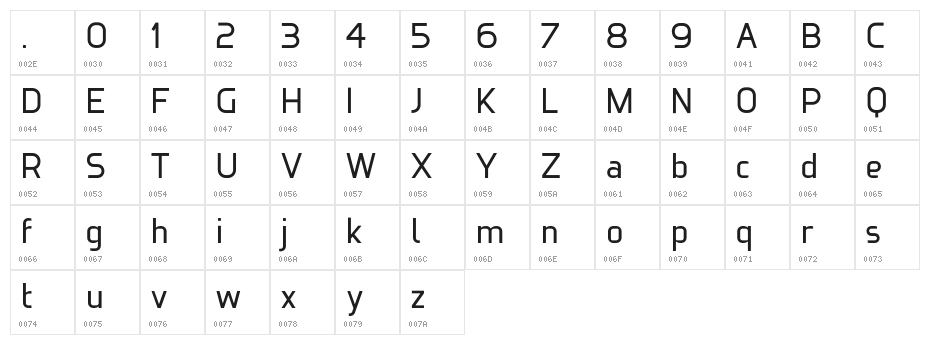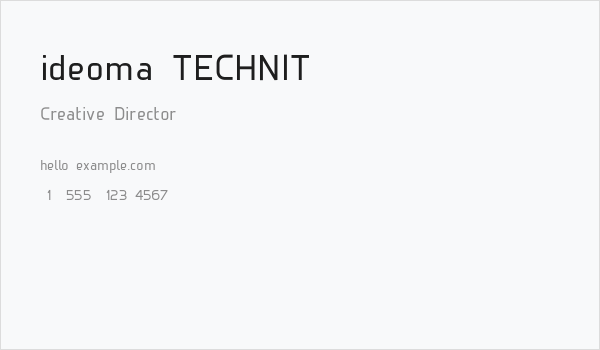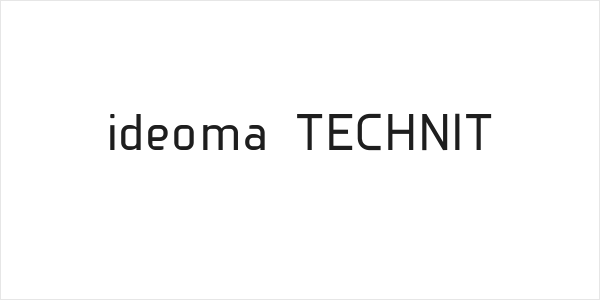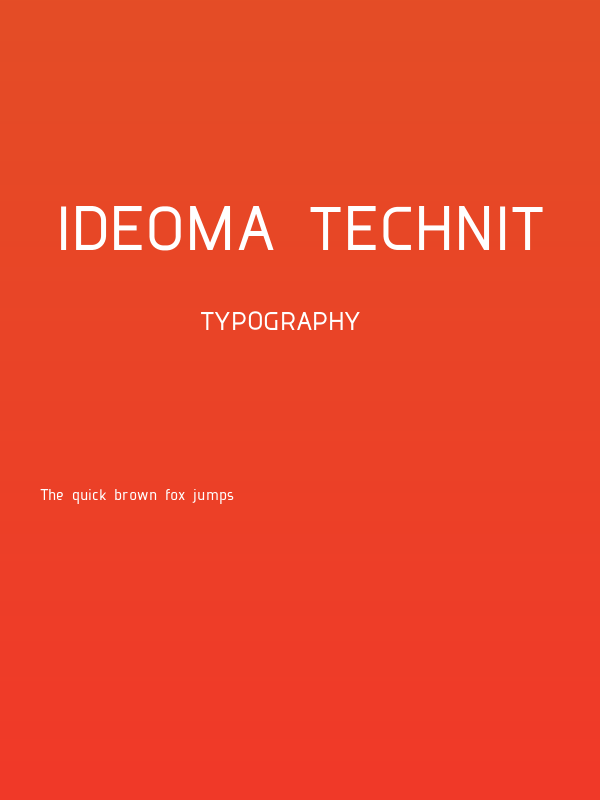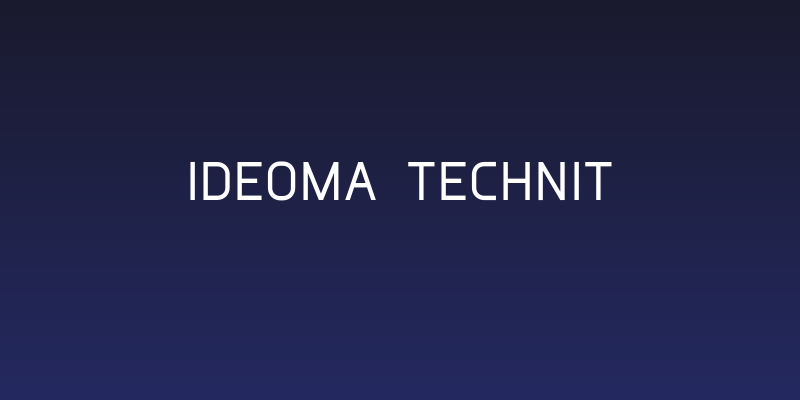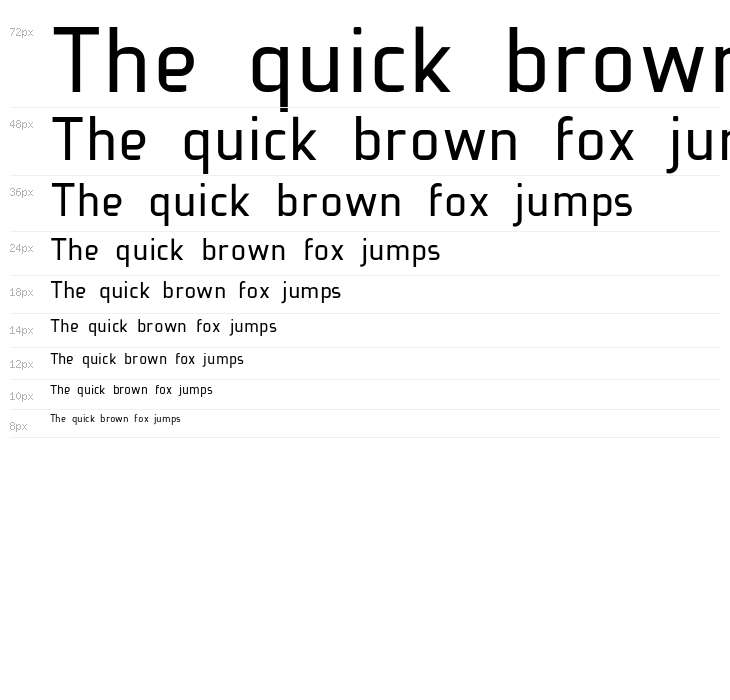
ideoma TECHNIT Font
ideoma TECHNIT Description
This font features a clean and modern sans-serif design, characterized by its geometric shapes and uniform stroke widths. The uppercase letters are tall and slightly condensed, giving a sleek and professional appearance. The lowercase letters maintain a consistent style, with rounded edges that soften the overall look. The numerals are clear and easy to read, making them suitable for various applications. Special characters are well-integrated, maintaining the font's cohesive style. This font's simplicity and clarity make it versatile for both digital and print media.
| Proposed Projects | Ideal for tech branding, user interfaces, signage, and editorial design. |